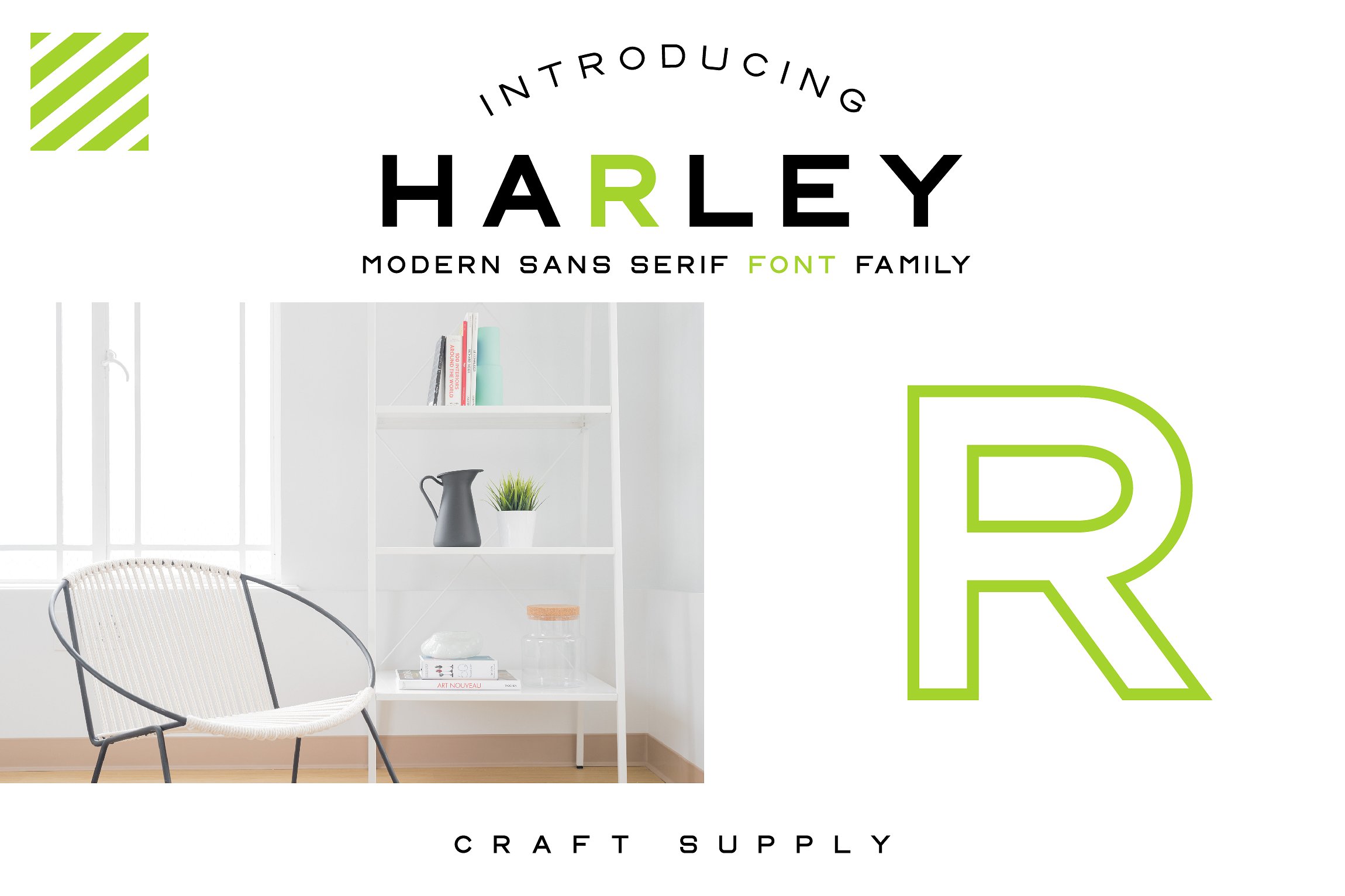
CS Harley
CS Harley Font
CS Harley Font Family
Introducing CS Harley Font Family includes 2 Style & 3 Weight Fonts. It would be a perfect choice to design posters, headings, letterhead, merchandise, logos, t-shirts, magazine, banner, and many more.